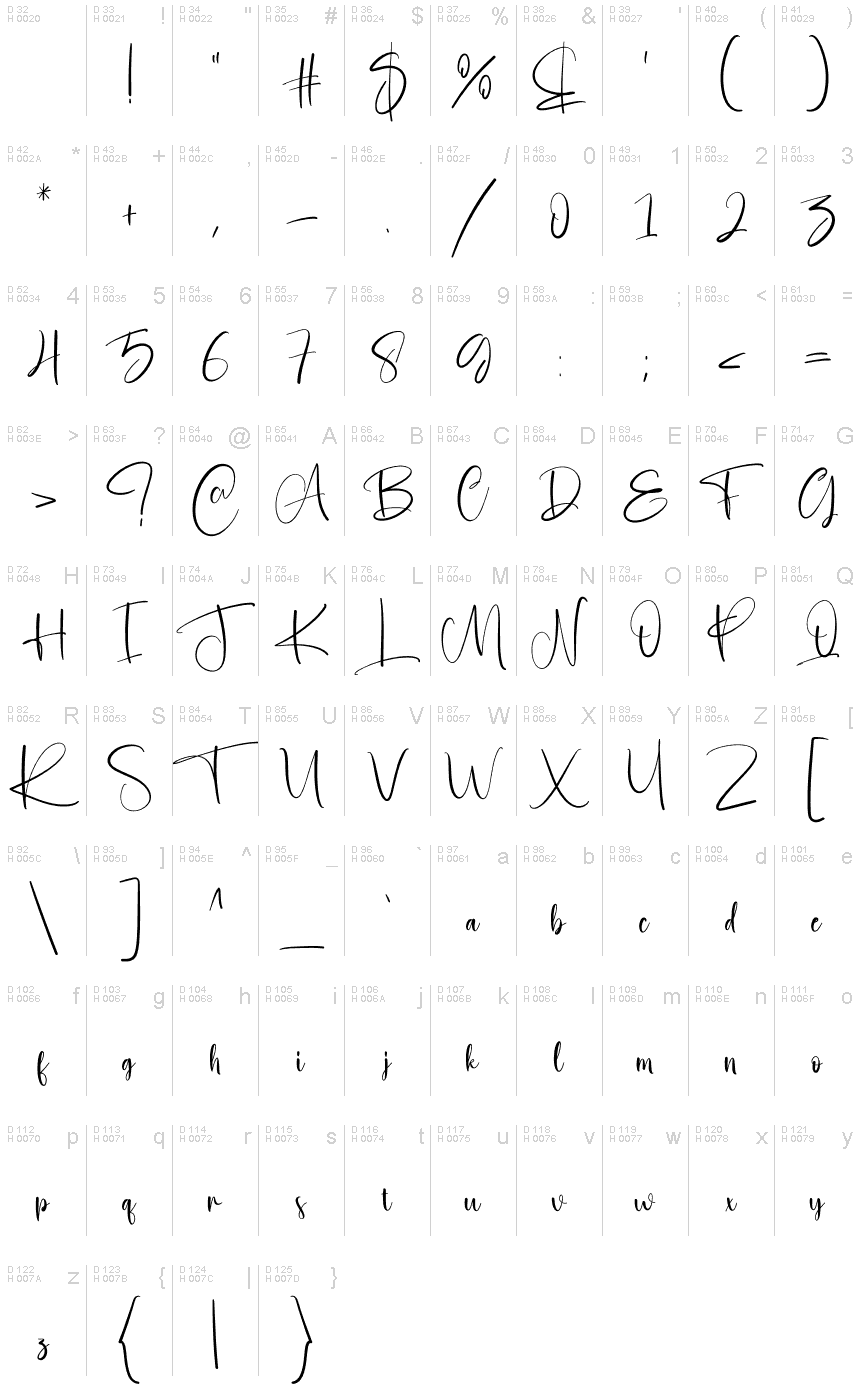
Resolute
Resolute, a stunning semi-light font by Scratchones, captivates with its beautiful handwritten style. Its delicate strokes and elegant curves bring a touch of sophistication to any project.
Perfect for wedding invitations, Resolute adds an enchanting charm to romantic designs. With its graceful appearance, this font lends itself effortlessly to feminine branding materials, such as cosmetics packaging or fashion magazines. Additionally, Resolute's refined nature makes it an ideal choice for creating elegant logos or delicate product labels.
Let Resolute elevate your designs with its exquisite handwriting that exudes timeless beauty.